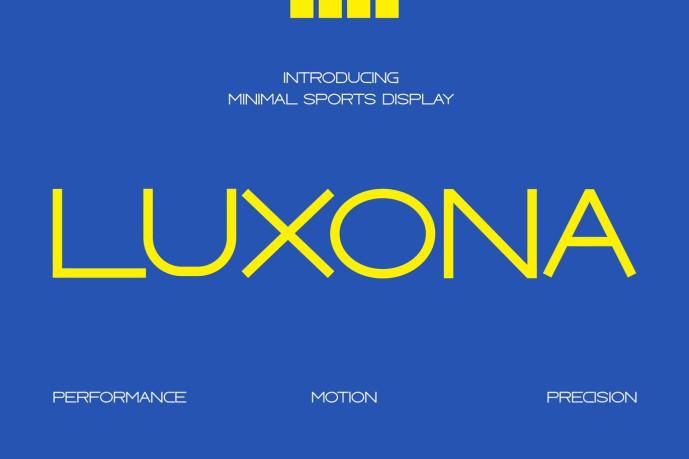
Luxona – Futuristic Sport Font
Luxona – Futuristic Sport Display Font
Luxona is a futuristic sport display typeface designed for modern branding, performance campaigns, and technology-inspired visuals. Built with geometric letterforms, rounded corners, clean curves, and balanced proportions, it creates a sleek, energetic appearance that feels both modern and highly functional. Inspired by contemporary sports technology and digital interfaces, Luxona helps every headline communicate speed, precision, and innovation.
Ideal for sports branding, esports graphics, product launches, posters, social media, packaging, UI concepts, automotive campaigns, and digital marketing, Luxona delivers a distinctive visual identity that performs across both print and screen.
Bring modern energy to every project with Luxona. Whether you’re designing branding, sports campaigns, gaming graphics, posters, website headers, app interfaces, or social media content, this futuristic display typeface helps your message look clean, dynamic, and impossible to overlook.
Key Features :
Modern Futuristic Style Clean geometric shapes inspired by technology and speed.
Built for Bold Headlines Perfect for eye-catching titles and impactful branding.
Sport & Tech Ready Ideal for sports, gaming, automotive, startups, and digital campaigns.
Highly Versatile Works beautifully for posters, packaging, editorial, UI, websites, and social media.
Clean & Readable Balanced proportions provide excellent visibility at large display sizes.